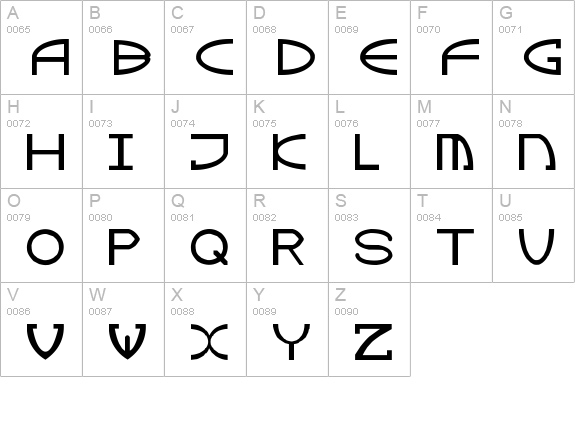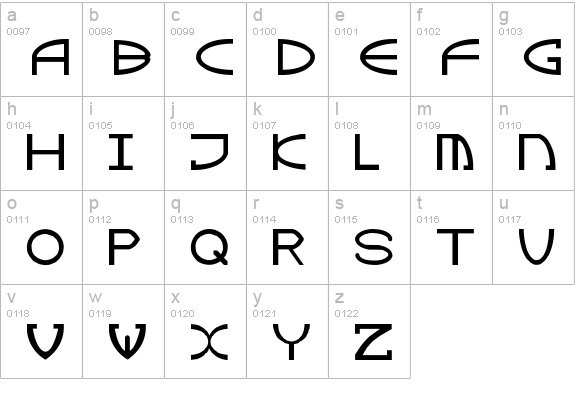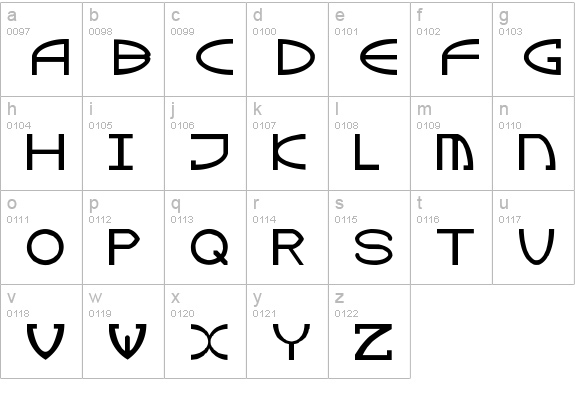
Green Dinosaur Font Details
The Green Dinosaur font is a charming and playful typeface inspired by the prehistoric era. Its whimsical design features bold, rounded letters with a unique dinosaur-inspired twist, making it perfect for adding a fun and quirky touch to your projects. This font is ideal for children's books, posters, invitations, and any design that calls for a touch of whimsy. The best part? Green Dinosaur font is completely free to download at FontsMarket.com. Embrace your inner child and bring a touch of nostalgia to your designs with this delightful and eye-catching font. Get creative and let the Green Dinosaur font roar into your next project!